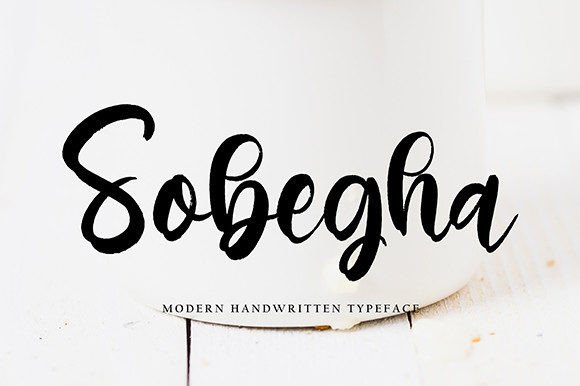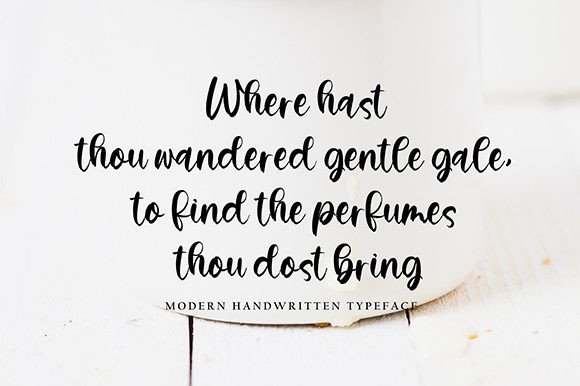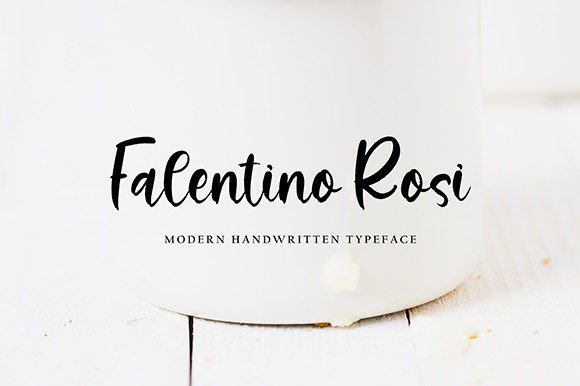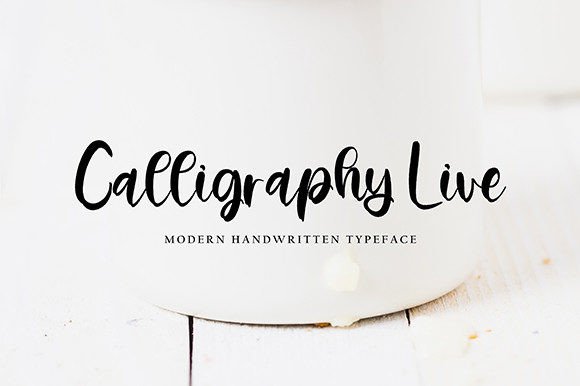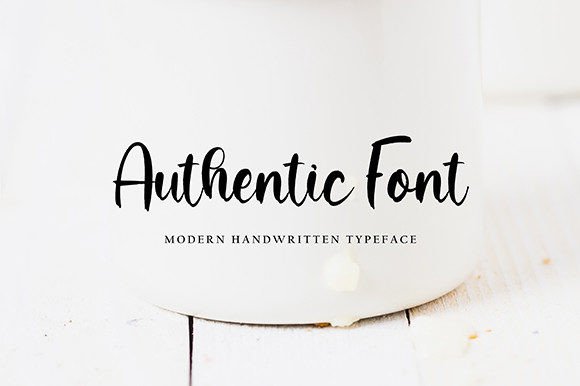
Sobegha
About Sobegha
Sobegha is a cool and bold handwritten script font. Fall in love with its incredibly distinct and timeless style and use it to create spectacular designs!